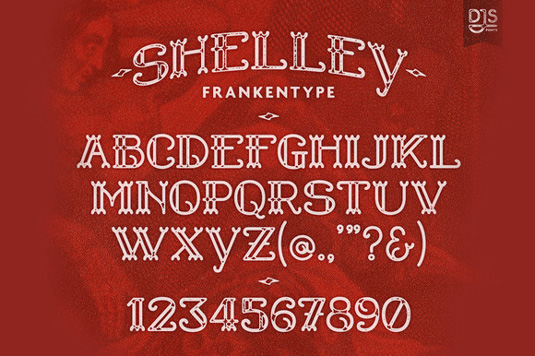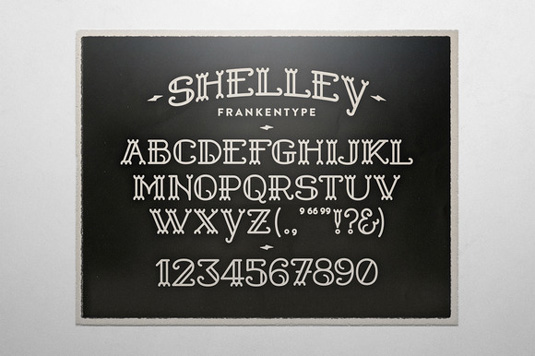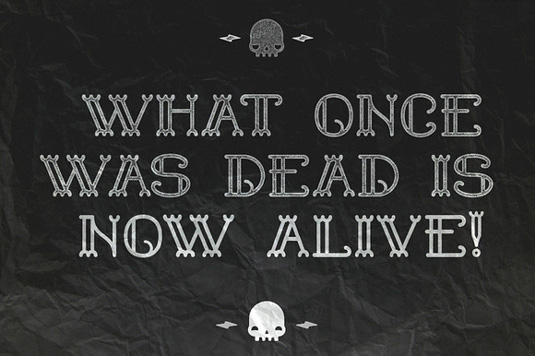
Font of the day: Shelley
Spice up your Halloween designs with today's font of choice, Shelley by DJ Sherman.
Shelley by DJ Sherman
Celebrate Halloween with this spooky typeface, Shelley by designer DJ Sherman of Hogwash Studio. A decorative display font, designed to be both scary and friendly, Shelley is available in two versions, normal and Shelley Dead, a distressed, stamp-like version.